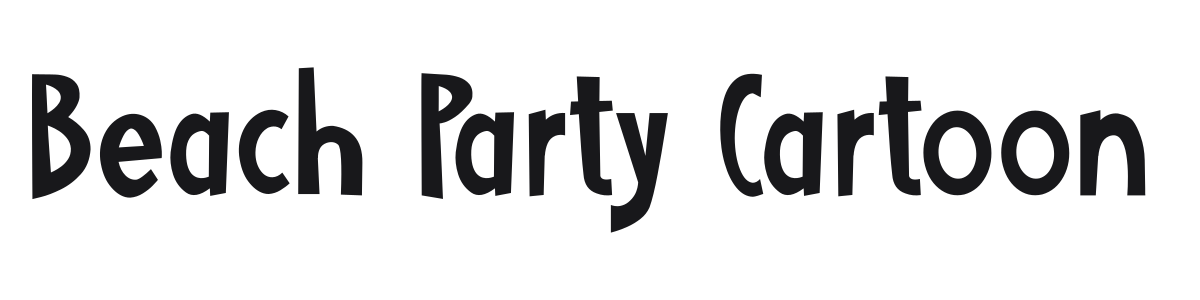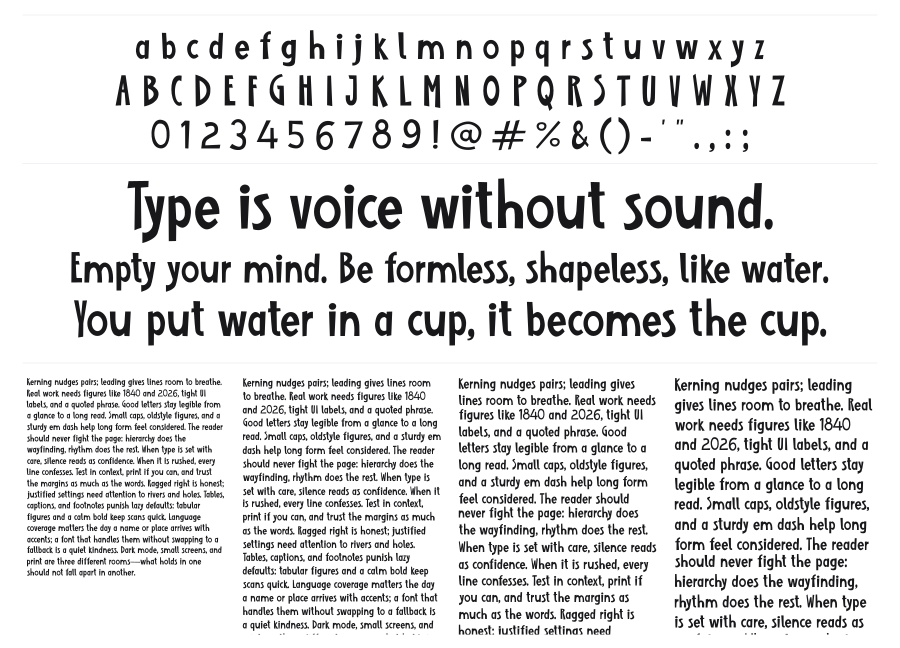
Beach Party Cartoon
Beach Party Cartoon is a bold, hand-drawn cartoon sans by Galdino Otten with irregular strokes and a lively, wobbly energy. The heavy weight and organic imperfections give it a festive, hand-lettered quality without fully committing to a brush script. It reads loud and fun at large sizes, suited to party flyers, event posters, and anything that needs a sunny, informal attitude.